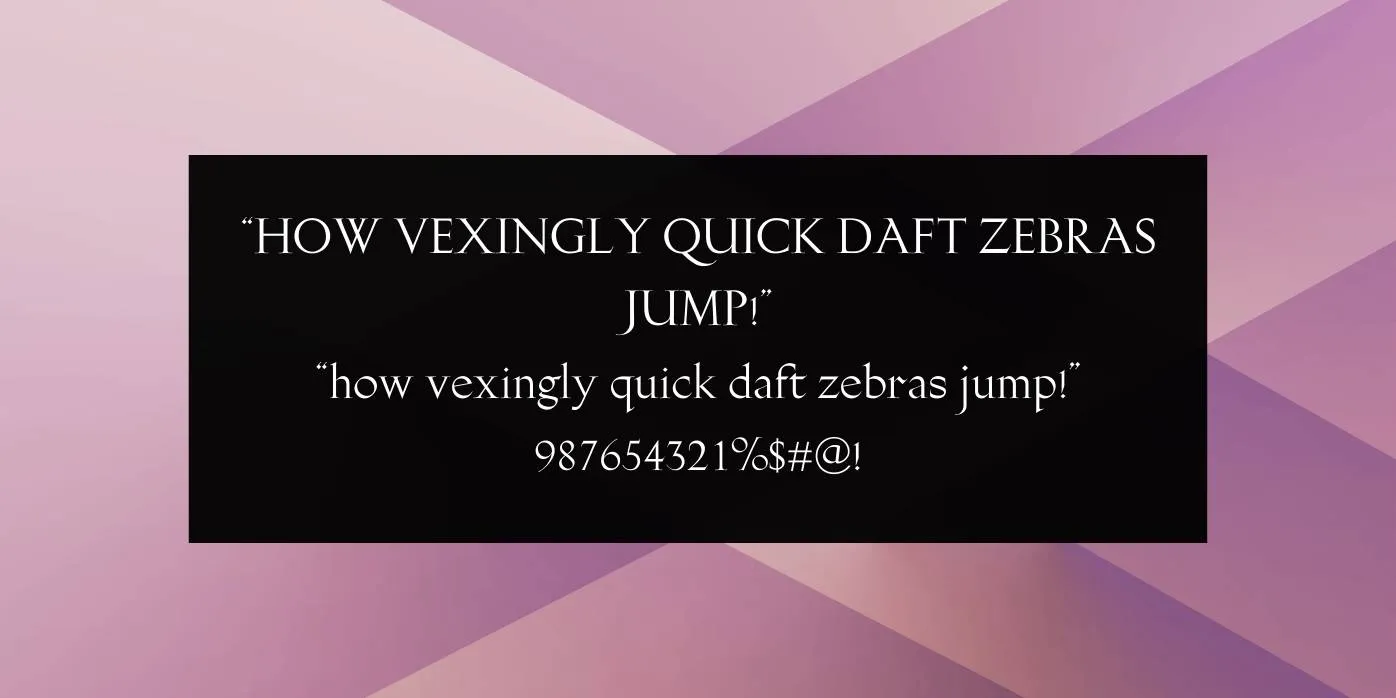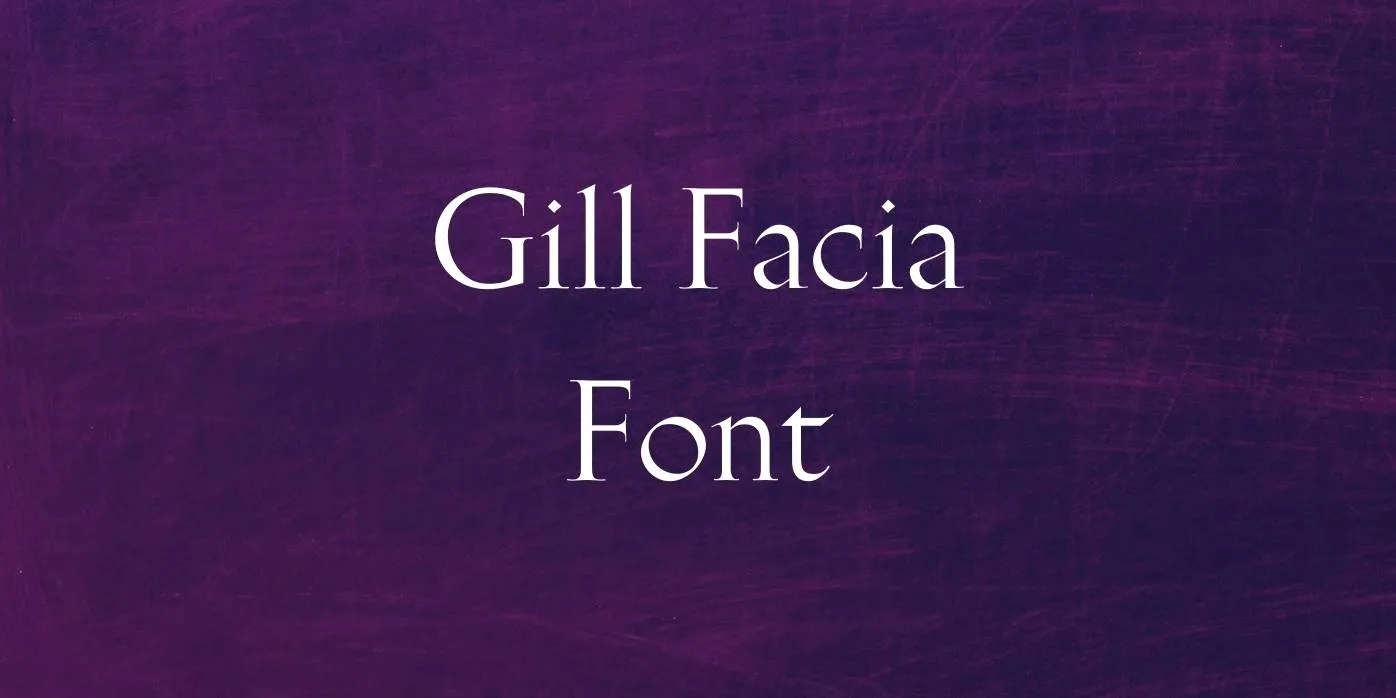
Gill Facia Font
Gill Facia Font is a serif typeface created by Swiss typeface designer Max Miedinger in 1957. The name Gill Facia comes from the Gill family of typefaces, which includes Gill Sans, Gill Kayo, and Gill Sans Bold. This is a serif typeface with a humanist design. It features plain geometric shapes and has a large x-height.
It is quite similar to the rex Font and it has a pairing personality with that, so you can combine them and make something crazy stuff. This font style has been used by many major brands. This is a versatile typeface that can be used for both body copy and headlines. If you want to add a touch of sophistication to your designs, this is the perfect font for you.